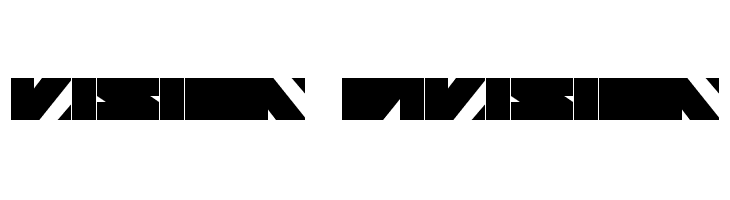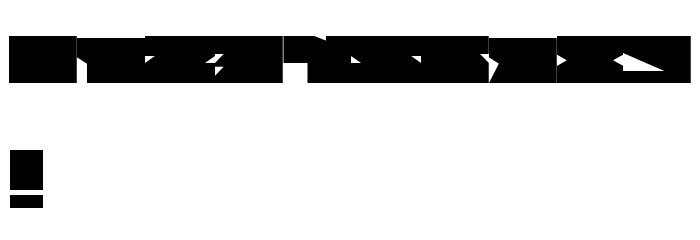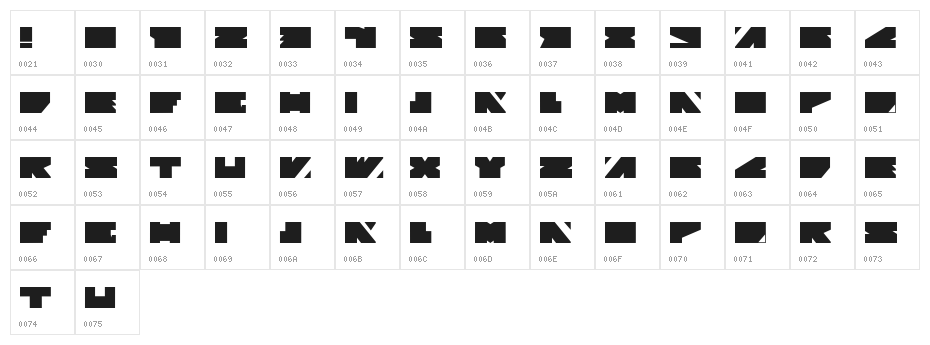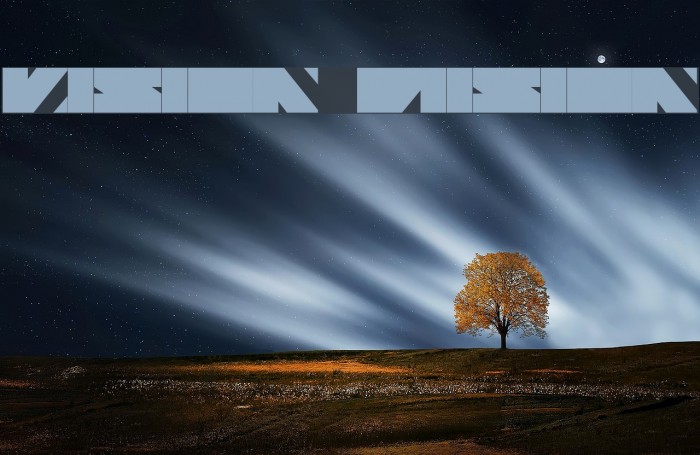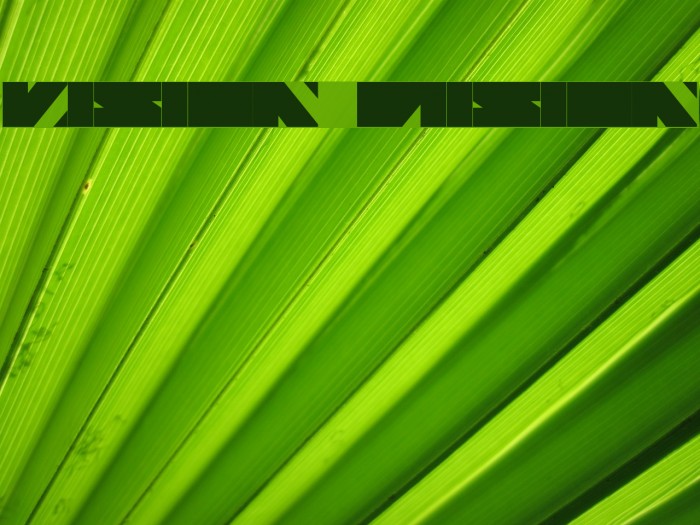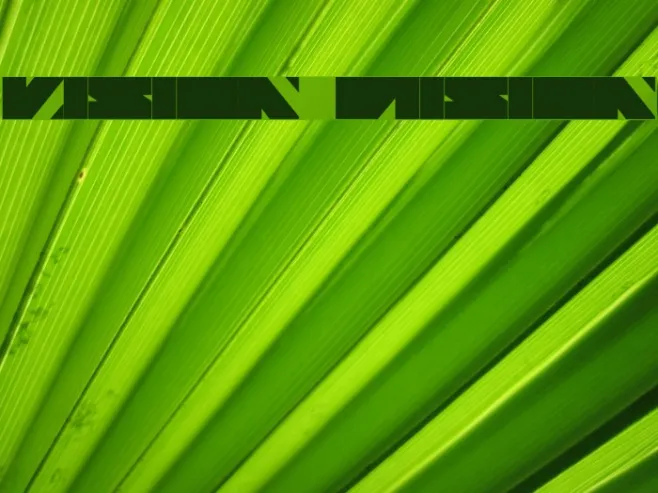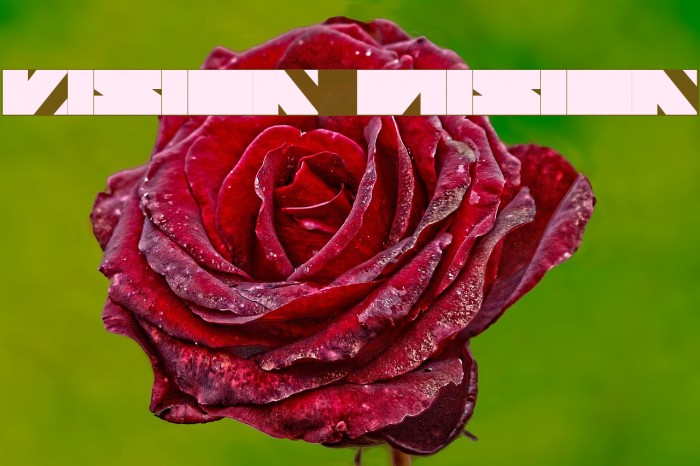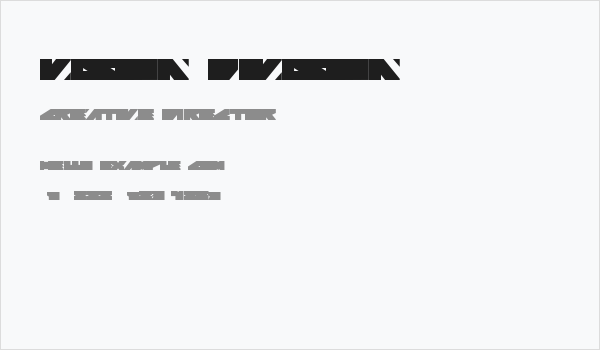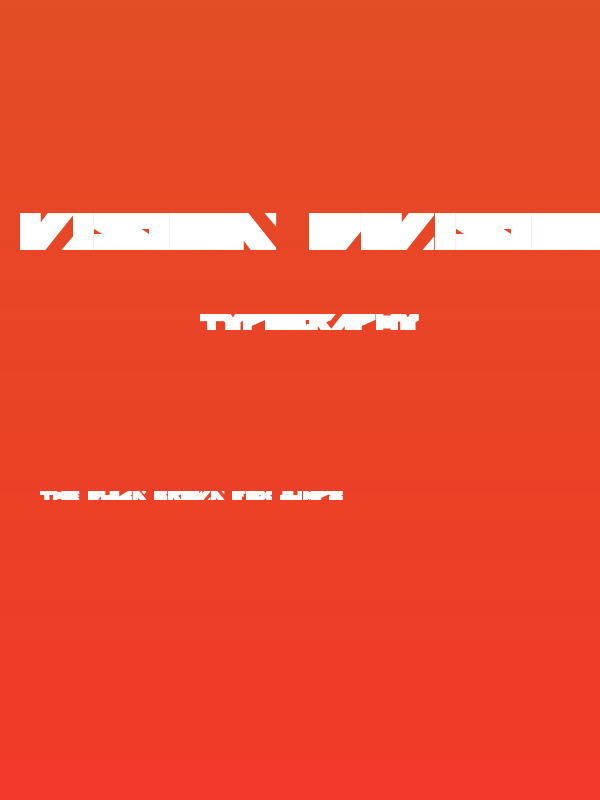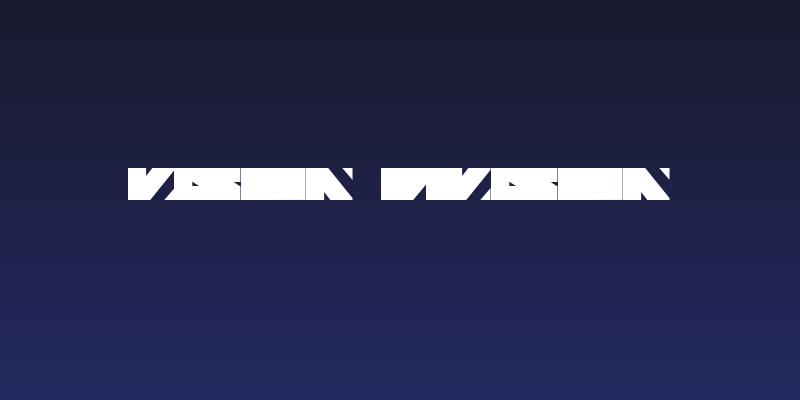
Vision Division Font
Vision Division Description
This font features a bold and geometric design with sharp angles and a futuristic aesthetic. The characters are constructed with solid, block-like shapes, creating a sense of strength and modernity. The uppercase letters are particularly striking, with each character maintaining a consistent height and width, contributing to a uniform appearance. The lowercase letters mirror the uppercase in style but are slightly smaller in scale. The numbers and special characters follow the same design principles, ensuring coherence across all elements. This font's unique style makes it ideal for projects that require a strong visual impact.
| Proposed Projects | Ideal for branding, posters, video game graphics, and futuristic-themed designs. |